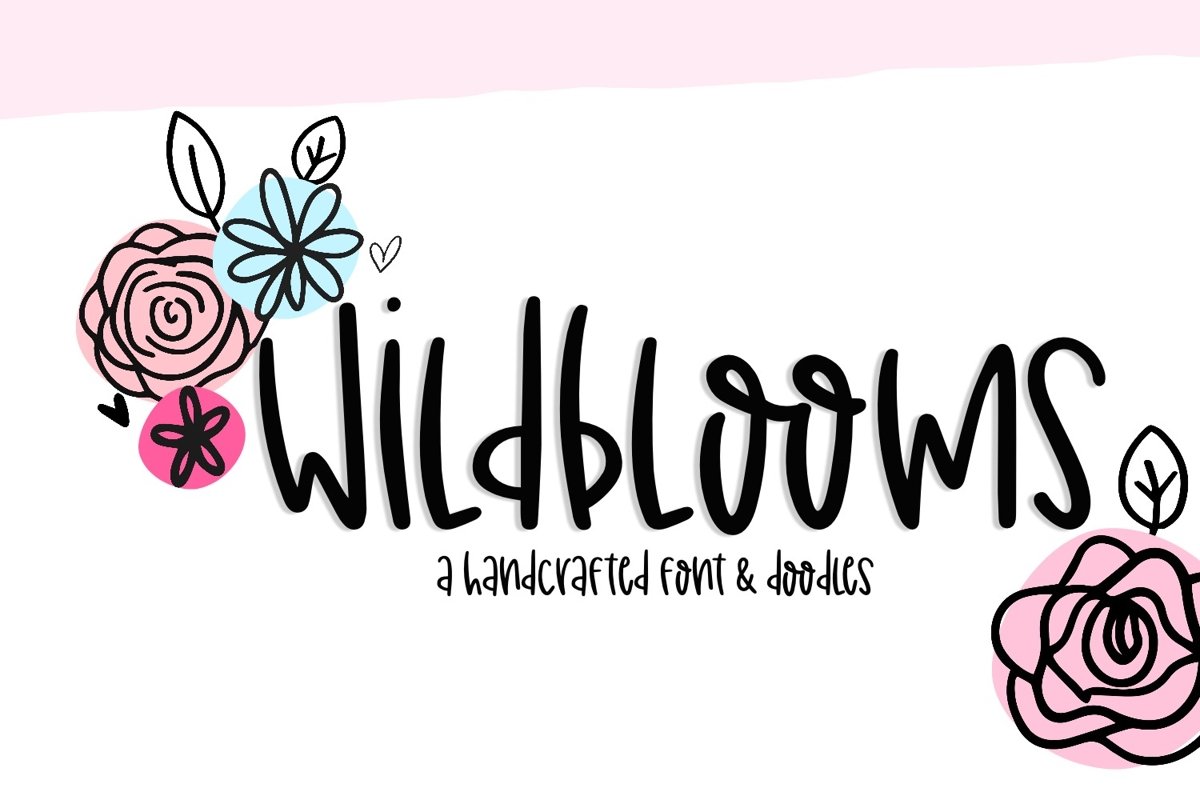
Wildblooms Handwritten Font
ABOUT THIS FONT
Meet Wildblooms! This mixed case handwritten sans is perfect for many design projects! I've made this font as smooth as possible, reducing the amount of nodes in each glyph to ensure optimal cutting with Cricut, Silhouette or other craft machines.
SS Wildblooms
SS Wildbloom Doodles
Wildblooms Handwritten Font